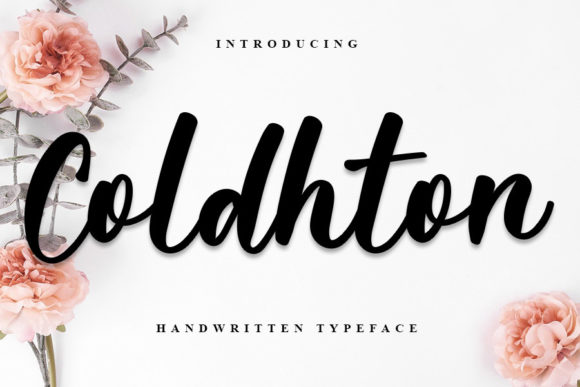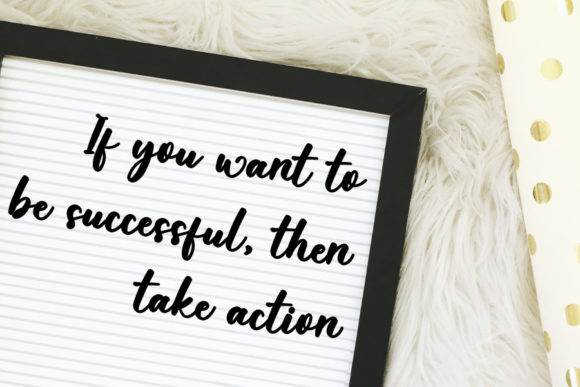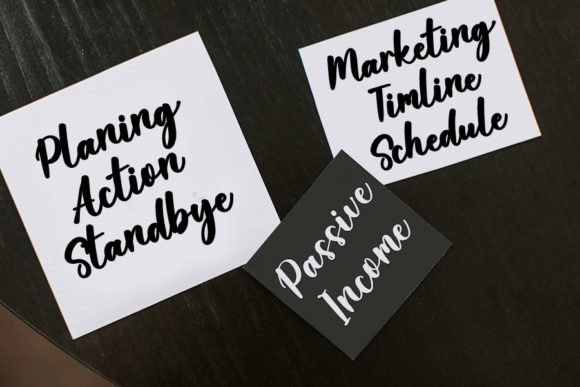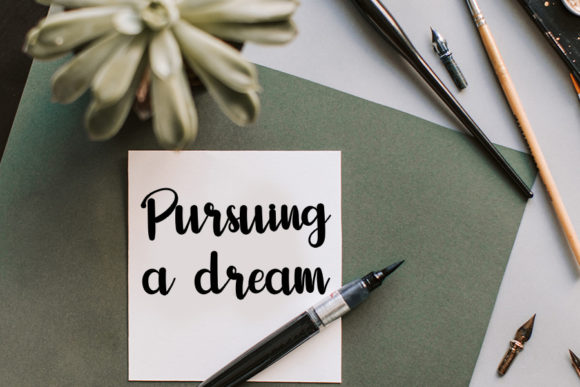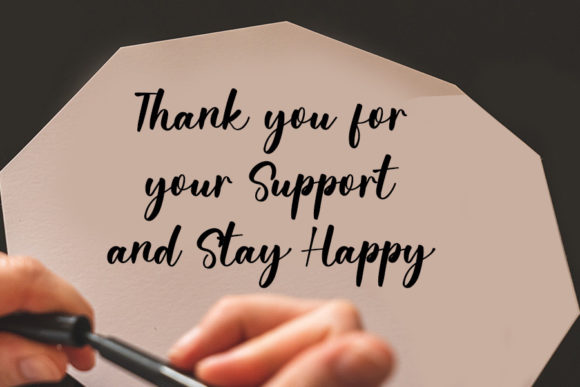
Coldhton Font
About Coldhton Font
Coldhton is a delicate and well-rounded handwritten font, perfect for crafty projects that need authentic typography! Use it for wedding invitations, birthday cards, personal branding, elegant logos, or more.